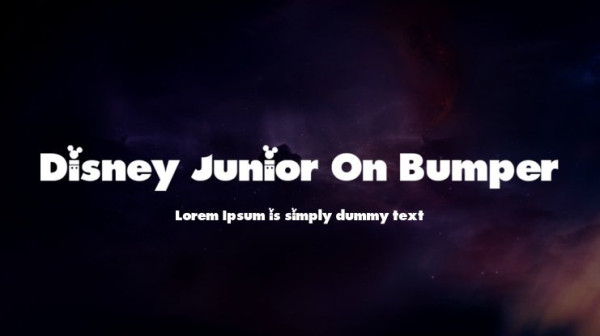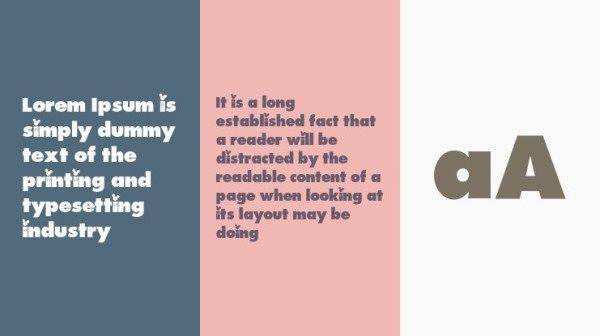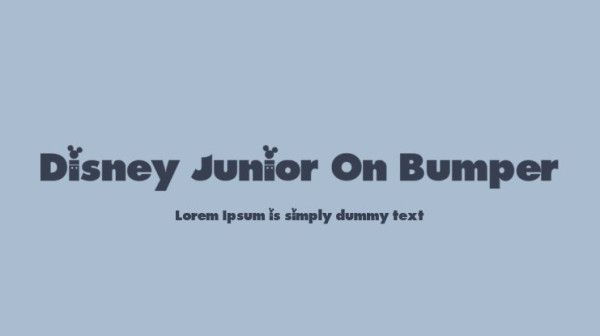
Disney Junior On Bumper Font, Suitable for any design needs : logo, branding, modern advertising design, logos, poster quote, book / cover Title, editorial design, website / blog, card, t-shirts,…
Disney Junior On Bumper Font
Disney Junior Logofont by PEPENDEJO